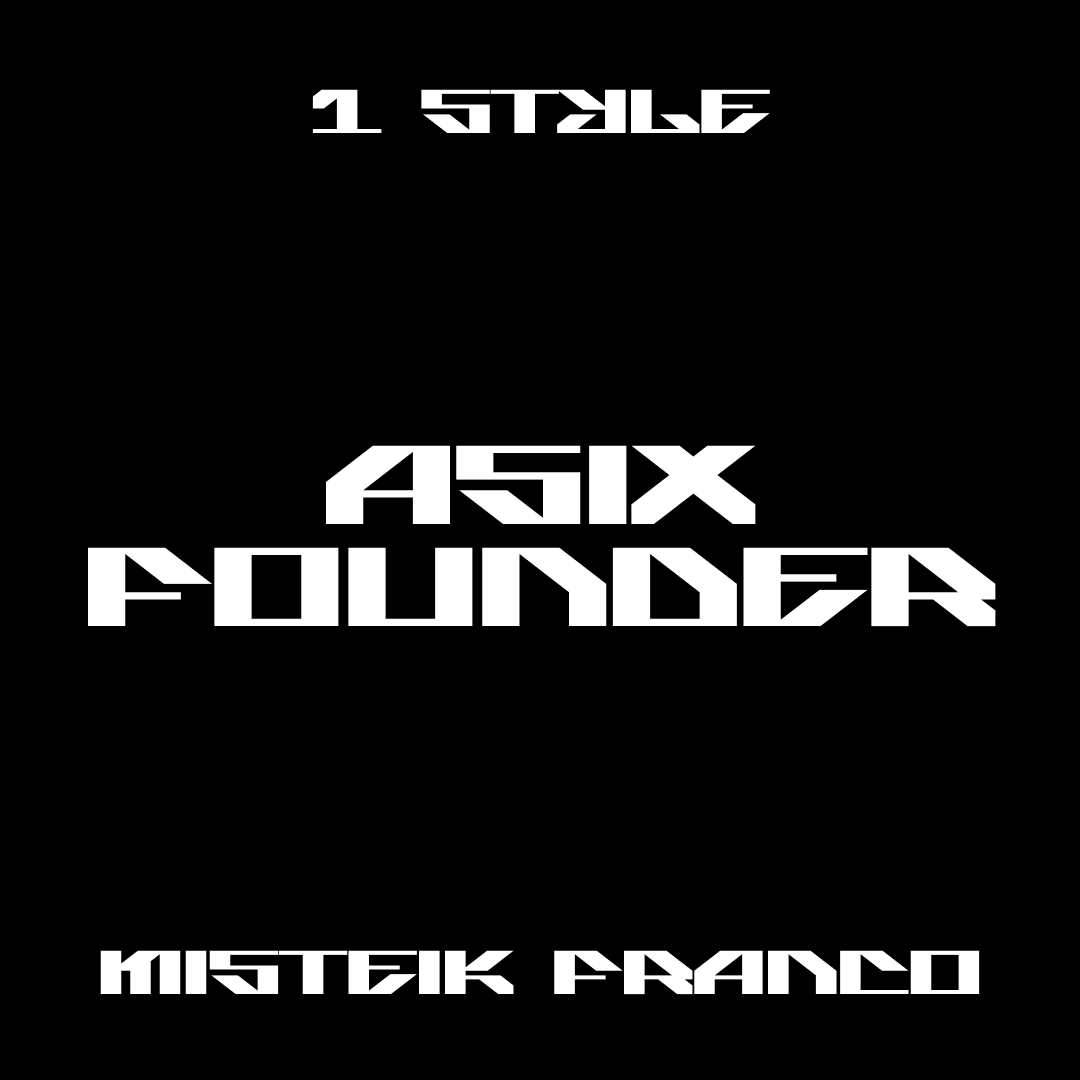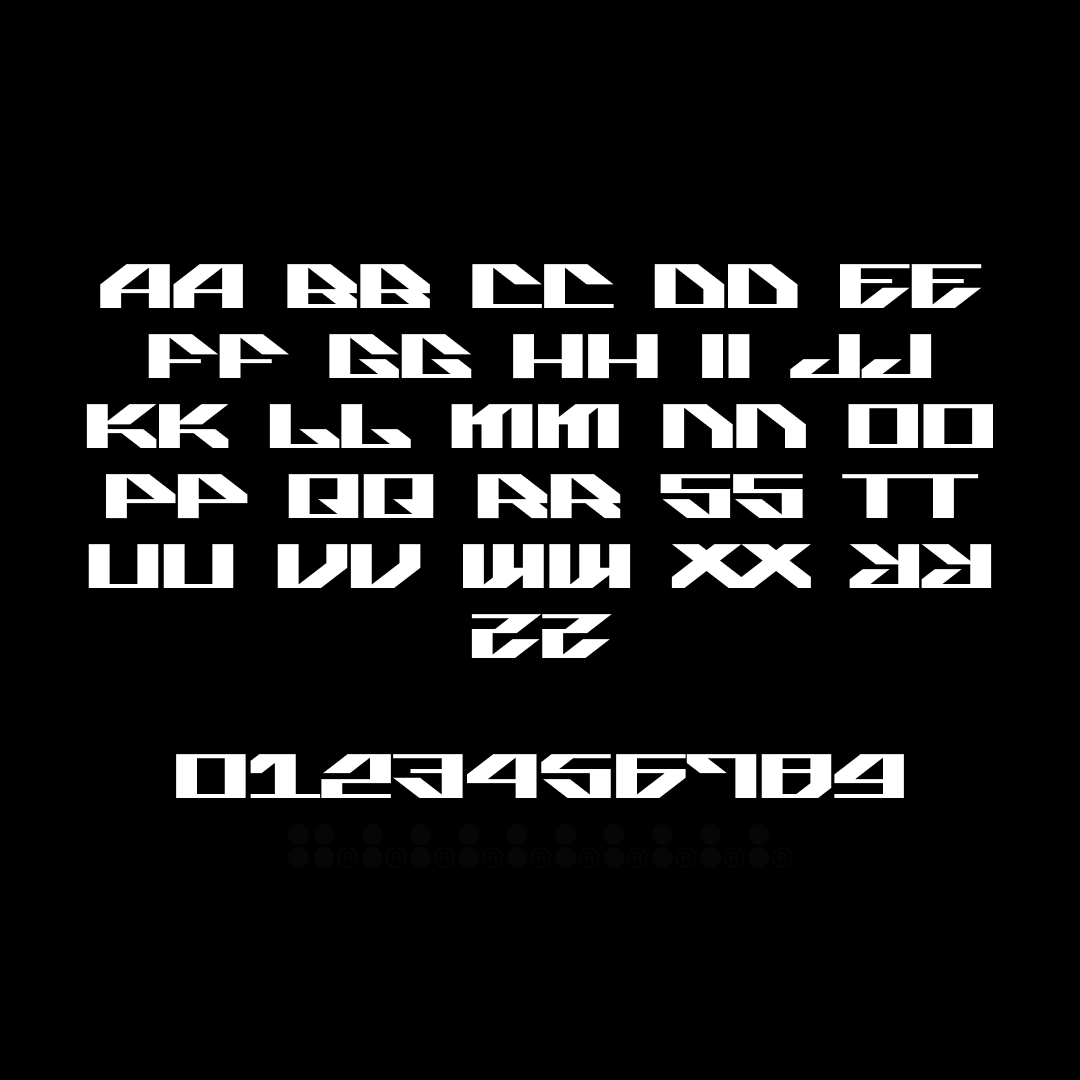
Asix Founder is part of a free font bundle from designer Misteik Franco who creates Y2K inspired typographic explorations, optimized for logo design.